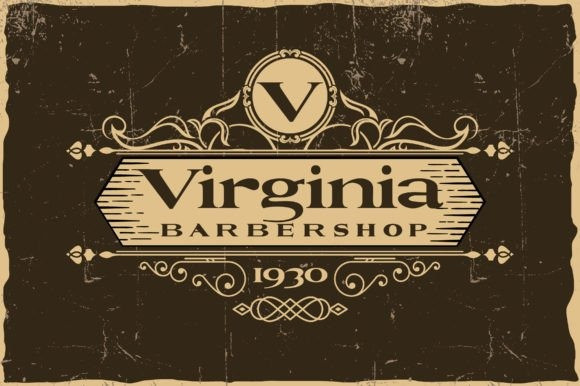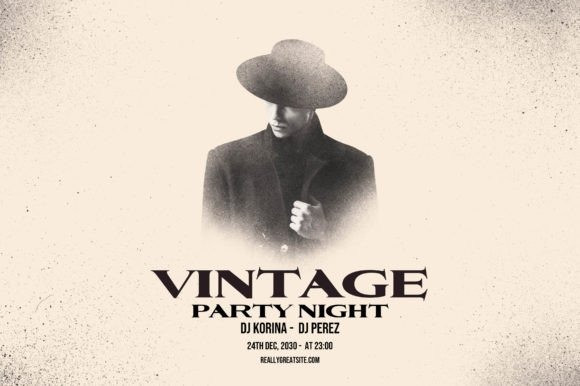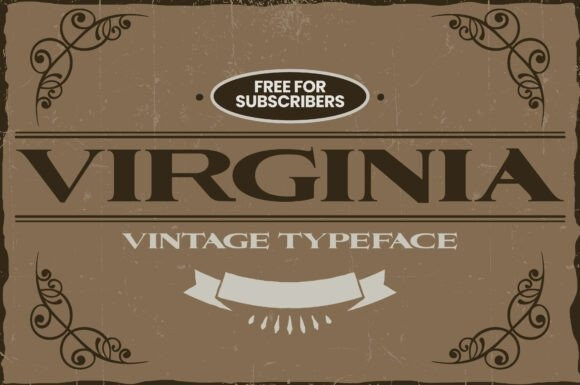
VIRGINIA VINTAGE FONT
Virginia Vintage Font is an American slab serif typeface that expresses the wild west cowboy American culture. It can be used to create themes such as shown in the font covers and it can fit perfectly any vintage, retro theme without any problems. It also suits book covers, magazines, comic magazines, posters, cartoon production, and many more!